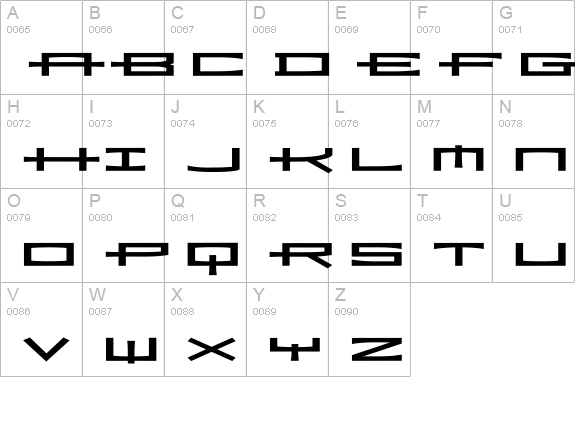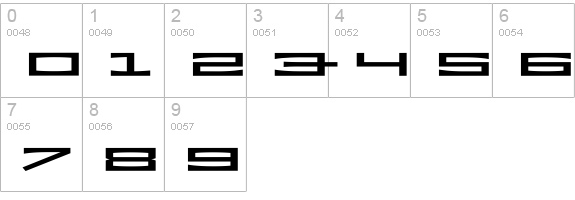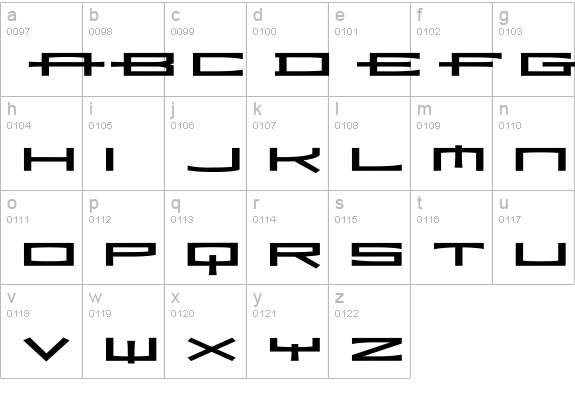
Ramiz-BoldExt Font Details
Ramiz-BoldExt is a stunning and versatile font that exudes confidence and sophistication. Its bold and extended letterforms make a bold statement, perfect for capturing attention and leaving a lasting impression. Whether used for headlines, titles, or branding materials, Ramiz-BoldExt adds a touch of elegance and professionalism to any design. One of the most notable features of Ramiz-BoldExt is its unique combination of sharp edges and smooth curves, creating a harmonious balance that is visually pleasing to the eye. This attention to detail ensures that each character is visually striking and easily legible, even at smaller sizes. Moreover, Ramiz-BoldExt is a free font that can be downloaded and used for both personal and commercial projects. Its availability on FontsMarket.com allows designers and creatives to access this exceptional font without any cost, making it a valuable asset for anyone looking to elevate their designs without breaking the bank. With its extensive character set, Ramiz-BoldExt supports multiple languages, making it an inclusive choice for global projects. From English to Spanish, French to German, this font ensures that your message can be effectively communicated to diverse audiences. Whether you're designing a logo, a website, or a print advertisement, Ramiz-BoldExt is a reliable and versatile font that will add a touch of sophistication to your project. Its bold and extended letterforms, combined with its free availability at FontsMarket.com, make it an excellent choice for designers seeking a high-quality font that won't compromise their budget.